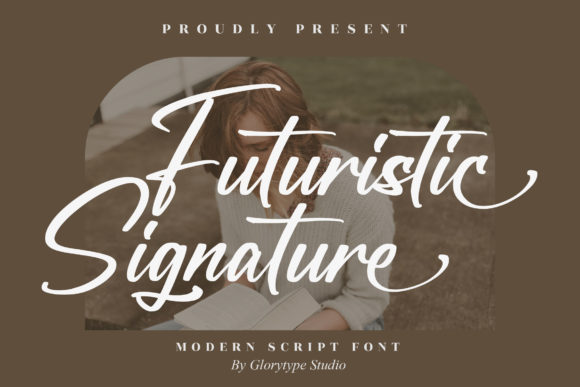
Futuristic Stylish Font
Futuristic Stylish is a romantic and sweet calligraphy typeface with characters that dance along the baseline. It will add a luxury spark to any design project that you wish to create! This font is PUA encoded which means you can access all of the amazing glyphs and ligatures with ease!